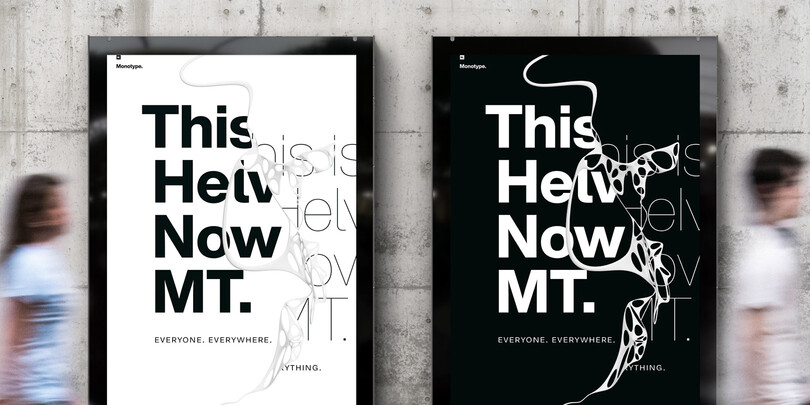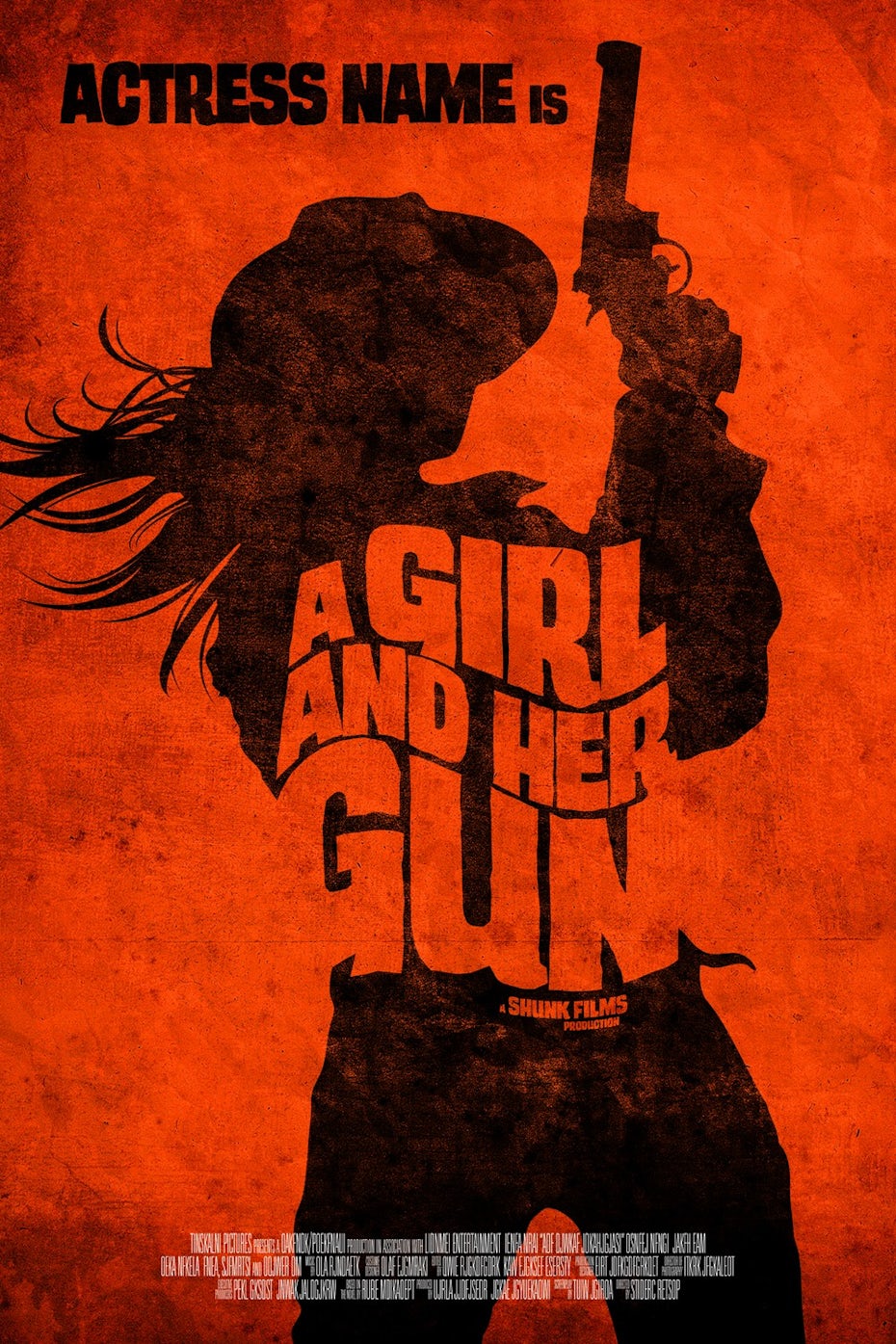
Poster Schriftarten
Poster schriftarten. Suitable for digital lettering, prints, logo, poster, tshirt and packaging Font format OTF Download also comes with bonus vintage shapes and logo templates Download Artisan Aprille Typeface Aprille, a display vintage font by Victor Barac, comes with tons of cool characters, symbols, and OpenType Features Aprille Typeface is perfect for. Try this funny modernlooking script font with a touch of vintage to make your menus stand out!. The Gutenberg Press is a set of fonts and clip art that contains famous German fraktur fonts Fraktur is a German style of blackletter or gothic font type The set includes Gutenberg's original typeface or font.
KalligraphieSchriftarten sind ideal als Blickfang und eignen sich vor allem in Überschriften oder als StatementSchriftart Du kannst sie in allen Bereichen einsetzen, von Websites über Poster bis hin zu inspirierenden Sprüchen. Band Poster Font Pack Curated by the Adobe Type team Share some music with the world!. Trattorian 2 font is like a magic pen that you can spell letters by typing any of the letters This font has 98 glyphs and 219 characters You can use it in birthday party themes, happy invitation cards, German posters to beautify posters and jewelry flyers, and Valentine’s Day Price Free KG DIAMONDS font is designed by Katz.
Inspired by the oldstyle typefaces on posters, packaging, and labels from the 19th century, the font collection offers more than 400 glyphs with many stylistic characters, alternative characters, swashes, and ligatures, as well as multilingual support 3 Stiquez Font Get a classic retro typeface when you use the divine Stiquez font. PT Sans has an air of flair and formality to its typeface, making it a reliable choice for your textual content If you are used to adding dates or location on your Instagrammable pictures, then PT Sans is the one for you It is slim and subtle, will not overshadow the brilliance of your picture but will still ensure that the letters are registered by the audience. Looking for Football fonts?.
Featuring rough and oblique variations, this handcrafted font will look friendly on food packaging or posters Barbariska Rough2 pack by Russian Fonts in Fonts Save 3 Jonesy Need yummy typography to make your guests hungry?. Aesthetic font generator tool will let you convert simple and normal font style into your desired font Simply type or copy the normal text into the blank text field. Erkunde Voker Neuenhauss Pinnwand „Free Fonts rounded“ auf Weitere Ideen zu kostenlose schriftarten, kostenlose fonts herunterladen, schriftarten für logos.
Serif fonts such as 12point Times New Roman, 11point Georgia, or normal (10point) Computer Modern (the default font for LaTeX);. Decolot can be used for websites, posters design, birthday invitations, gold and jewelry design, headlines, cards, scrapbooking, elegant gift wrap and more Price Premium Nadall Nadall by Eric Grunin is a retro free font for commercial use This Basic Sans Serif typeface comes with different amazing characters. Click to find the best 245 free fonts in the Rock style Every font is free to download!.
Adobe Fonts partners with the world’s leading type foundries to bring thousands of beautiful fonts to designers every day No need to worry about licensing, and you can use fonts from Adobe Fonts on the web or in desktop applications. HP Poster Font Download This Harry Potter Poster free font has duallined or shadowed calligraphy It is available for free download Its use is allowed for both personal and commercial use Download Parry Hotter Font This Parry Hotter font has a staggered lightning bolts appearance It is available for free download. Click to find the best 95 free fonts in the Football style Every font is free to download!.